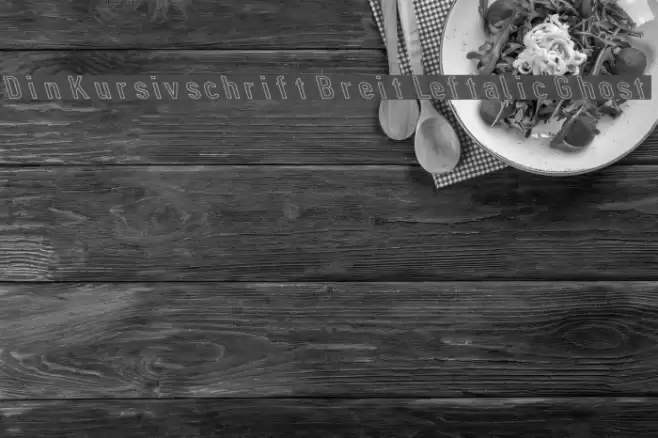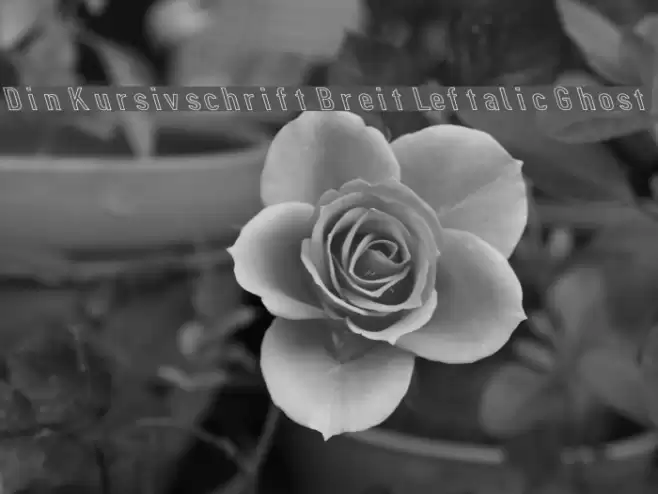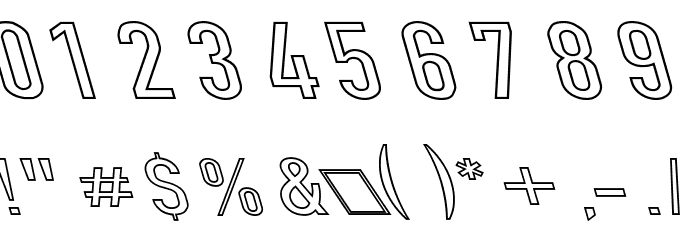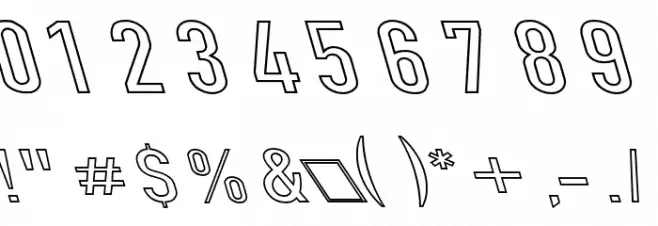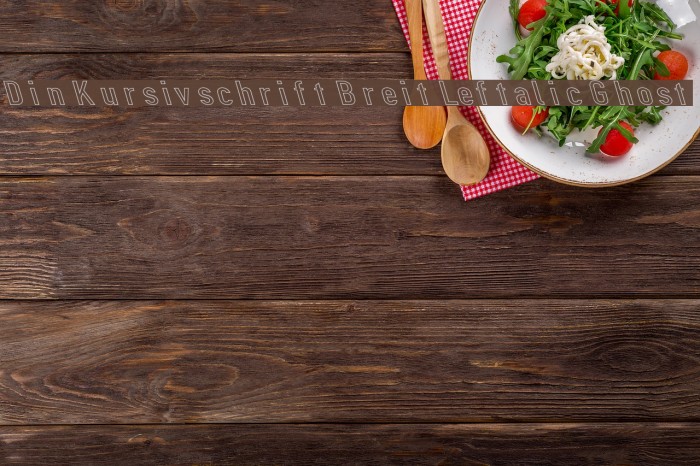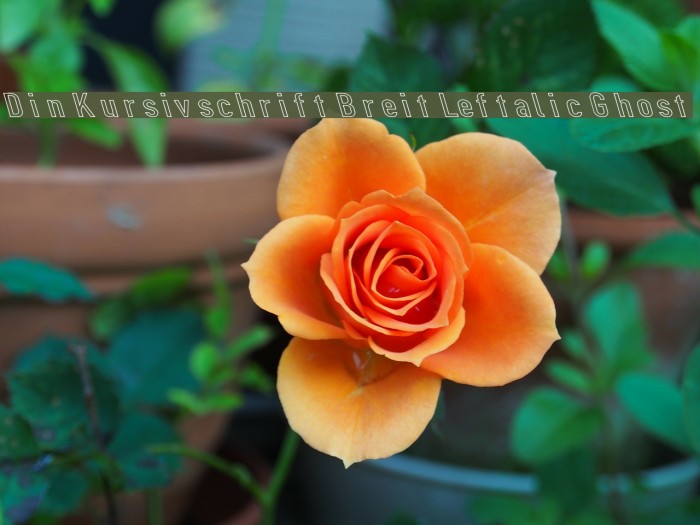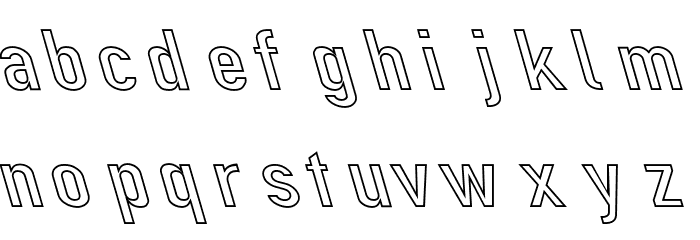
Din Kursivschrift Breit Leftalic Ghost
This font features a unique blend of modern and classic styles, characterized by its outlined, italicized letters that lean to the left. The uppercase and lowercase letters maintain a consistent width, giving it a uniform appearance. The numerals and special characters follow the same stylistic approach, ensuring a cohesive look across all glyphs. The font's open design and clear lines make it highly legible, while the italic slant adds a dynamic and forward-moving feel. Its geometric structure is both clean and sophisticated, suitable for various design applications.
A modern, outlined italic font with a leftward slant and geometric structure.
- Proposed Projects: Ideal for modern branding, editorial design, posters, and digital media where a contemporary and dynamic look is desired.
- Use Case: Headlines, Logos, Posters